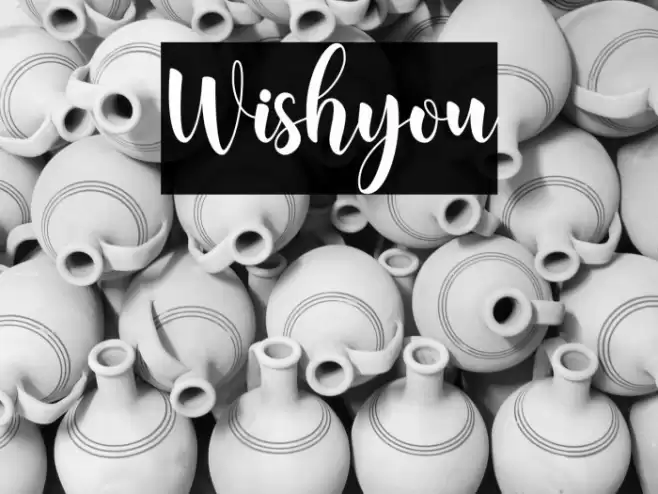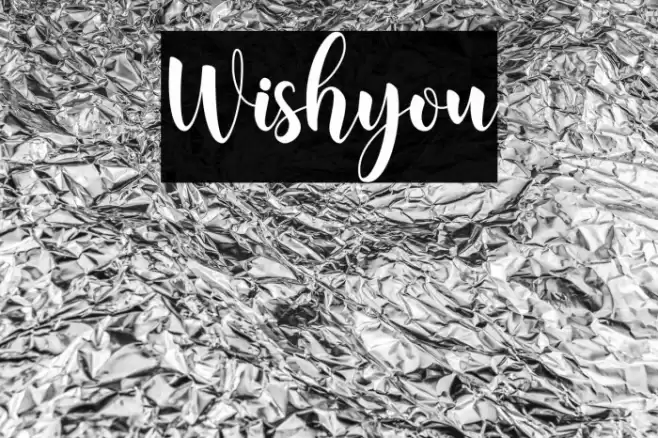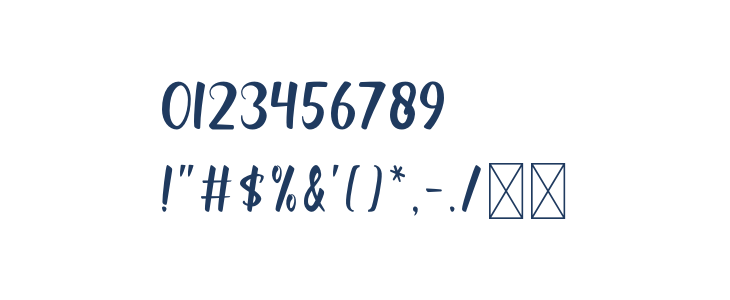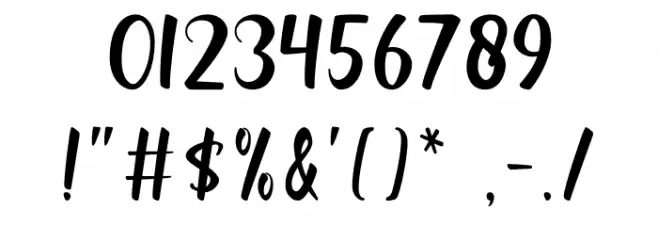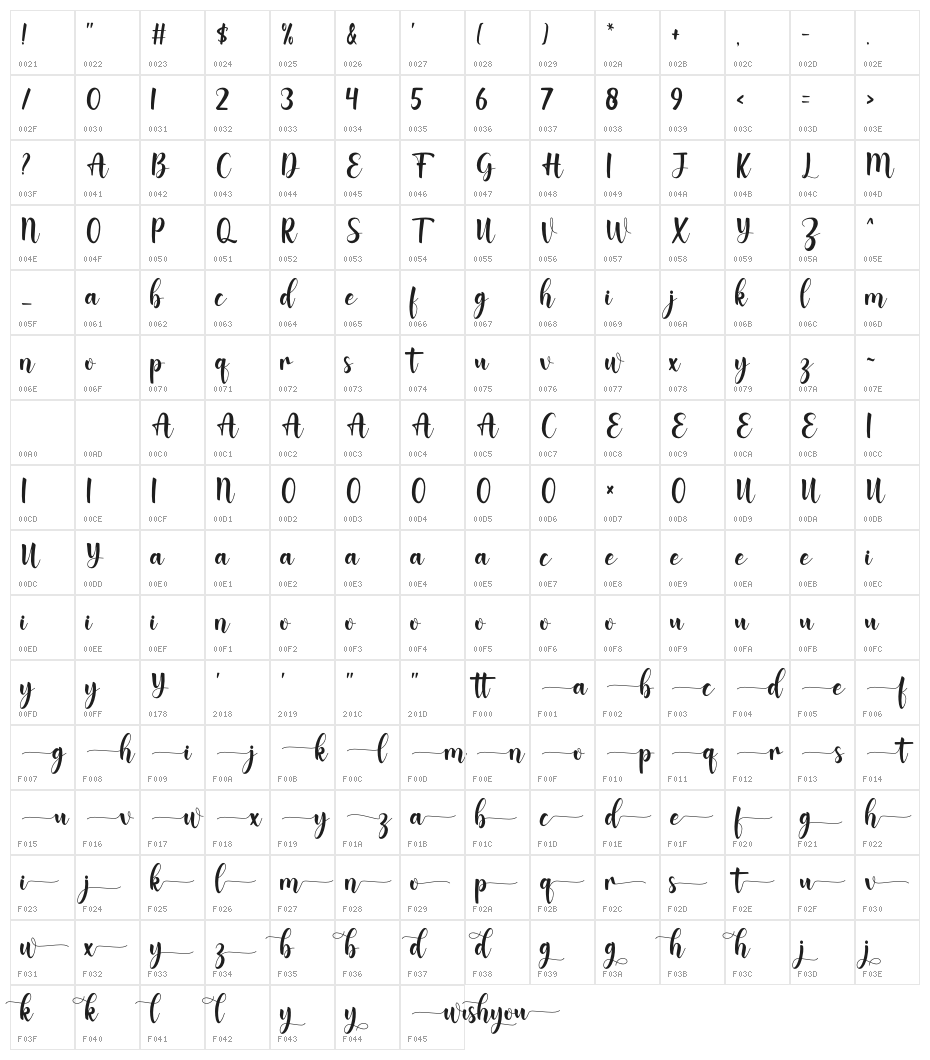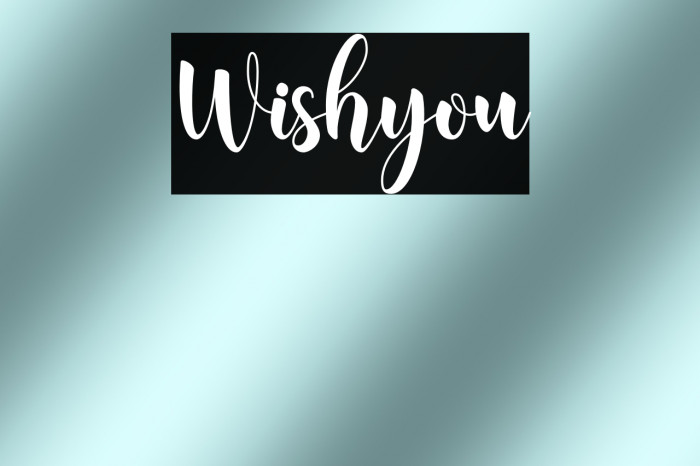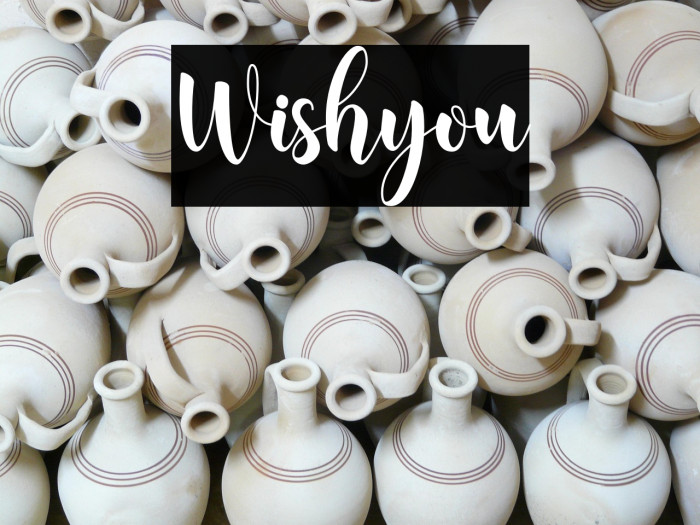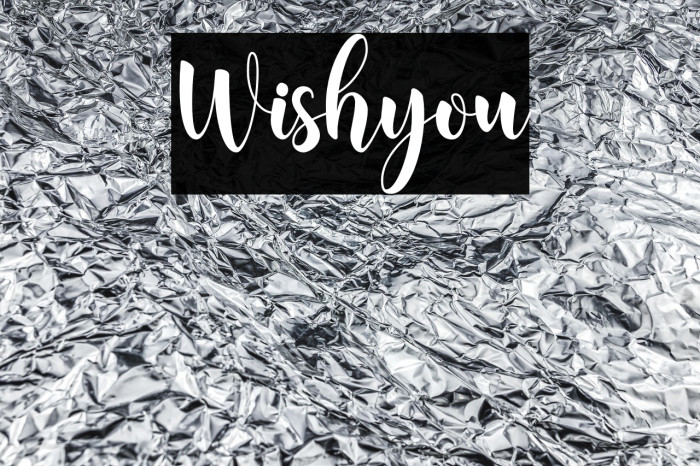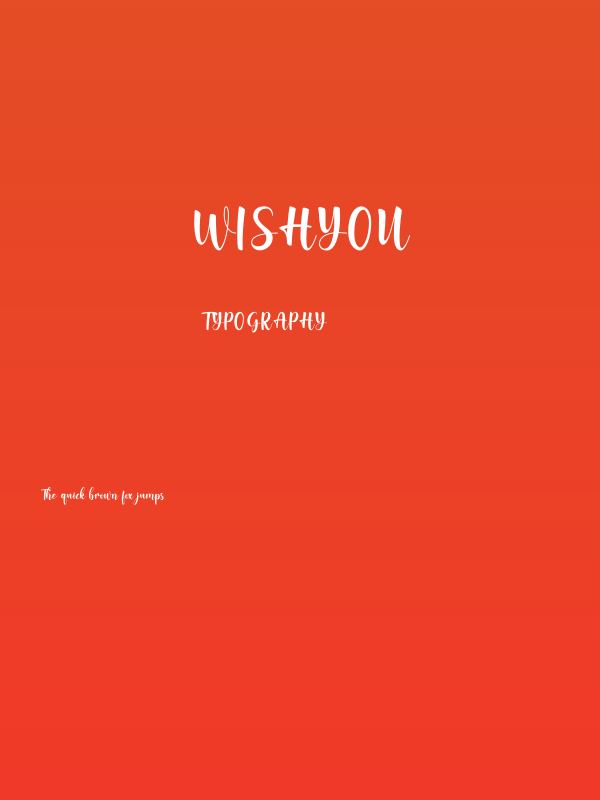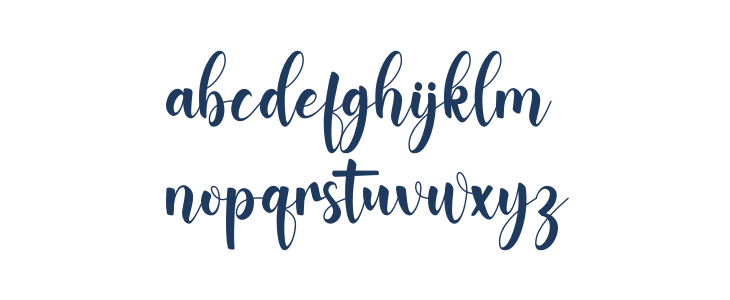
Wishyou Font
Wishyou Description
This font features a playful and elegant script style with a handwritten appearance. The uppercase letters are bold and flowing, while the lowercase letters maintain a consistent, smooth curve that adds a touch of sophistication. The numbers are clear and easy to read, complementing the overall design. Special characters are creatively integrated, maintaining the font's whimsical nature. The strokes are moderately thick, providing a balanced contrast that enhances readability without compromising style.
A playful and elegant handwritten script font with bold, flowing strokes from Regular fonts.
- Proposed Projects: Ideal for wedding invitations, greeting cards, branding projects, and social media graphics.
- Use Case: Logos, Headlines, Invitations